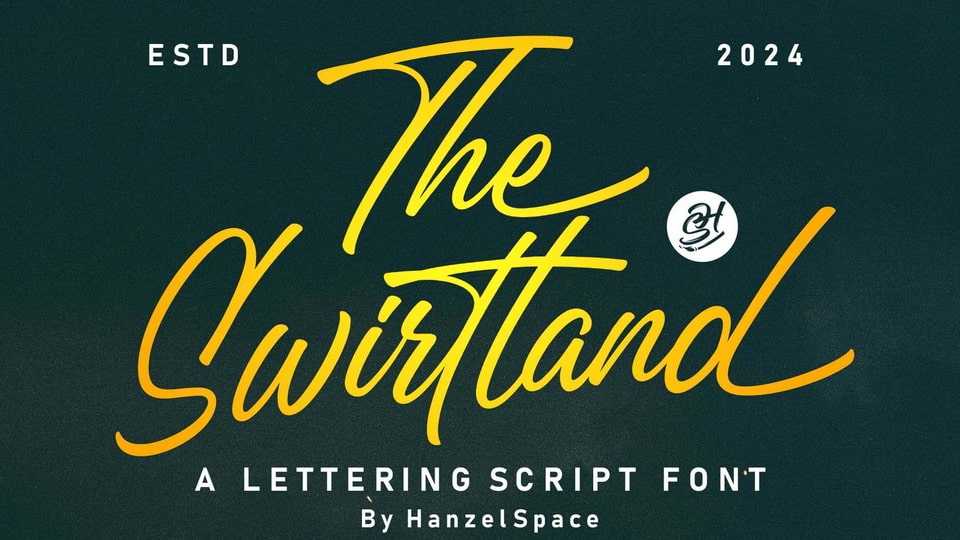
Download The Swirtland Script font, a typeface that displays a fairly neat hand lettering style made with a touch of personality on every curve of the letter anatomy.